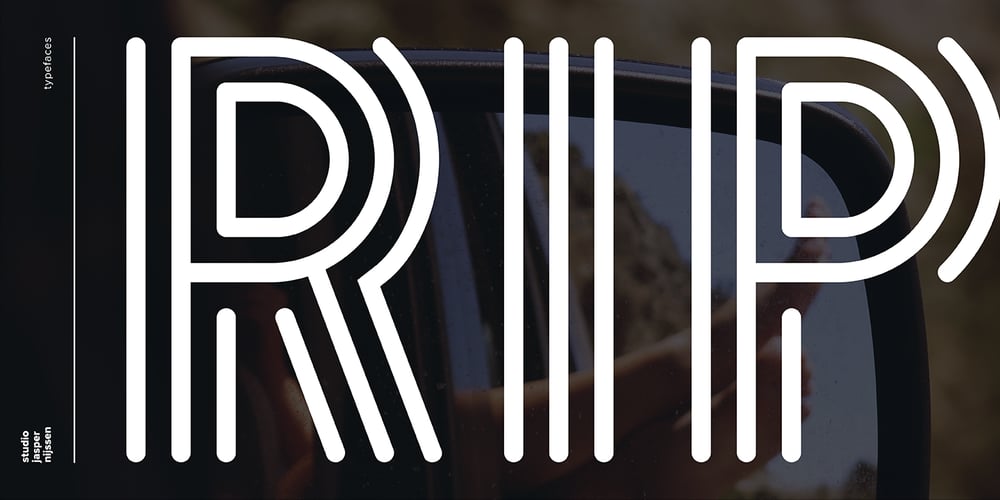
WBP Ripples
WBP Ripples font
WBP Ripples Font Family was designed by Jasper Nijssen and published by Studio Jasper Nijssen. WBP Ripples contains 1 styles and family package options. Stone skipping creates water ripples. This font expands by the same principle. A small, narrow base growing to the top, right, bottom and left until it reaches the shores. In this case: from the mean line to the baseline and caps height with a max. of three lines. WBP Ripples is a beautiful, friendly looking and playful display font for everyday use.